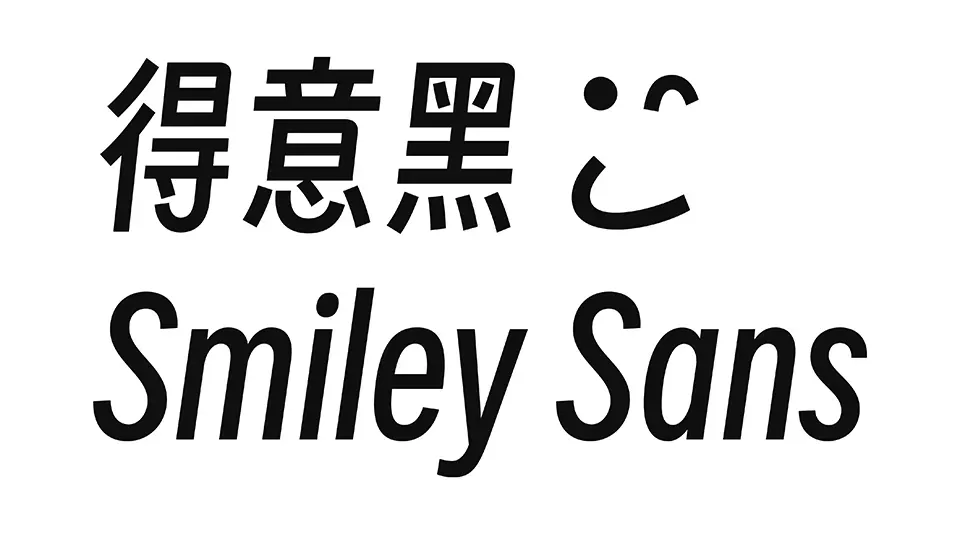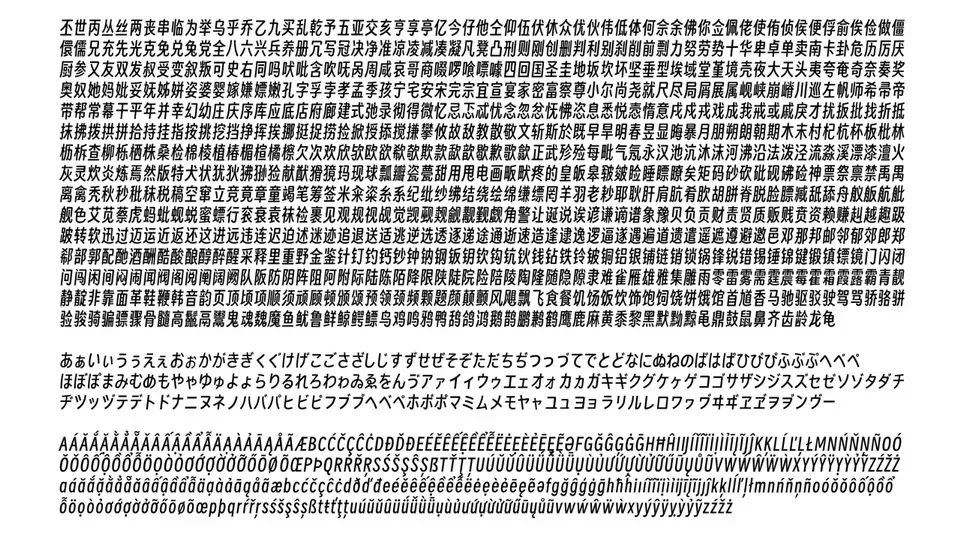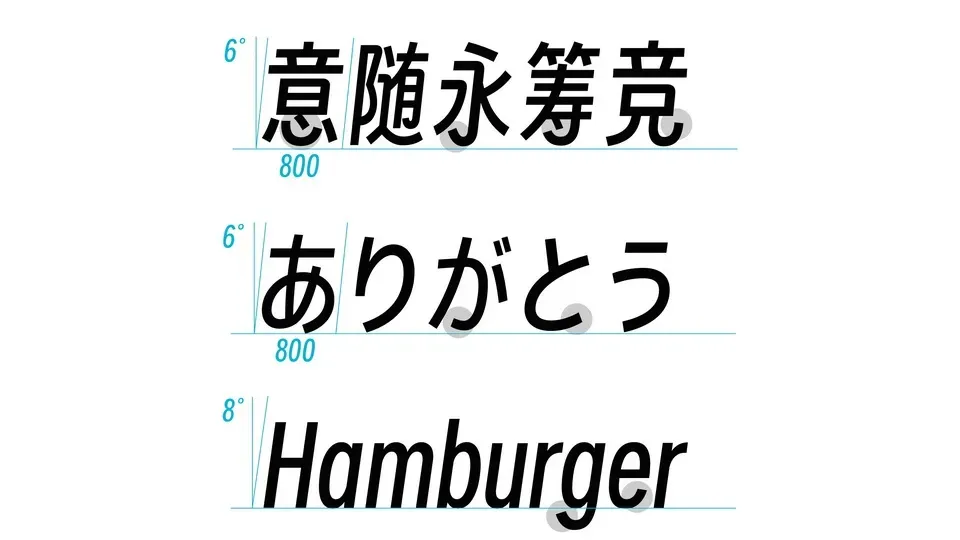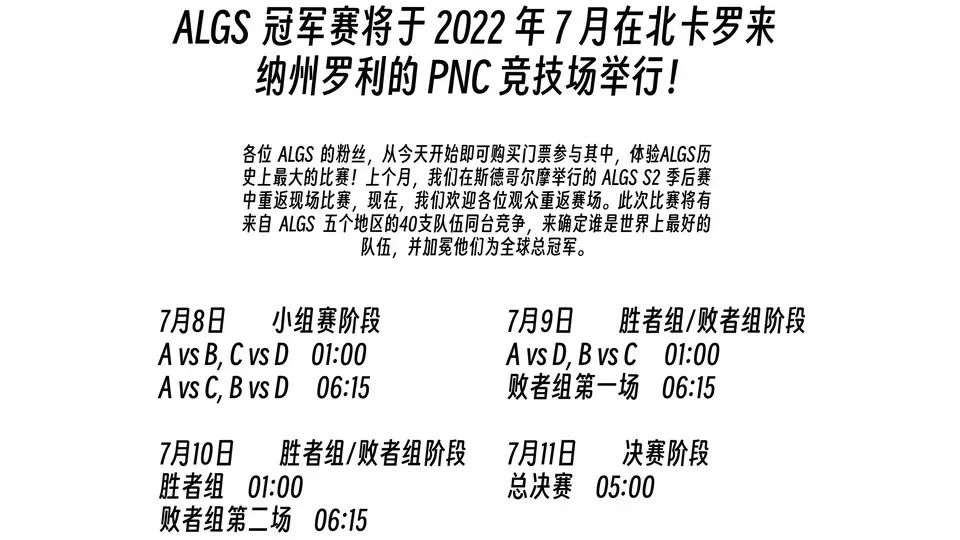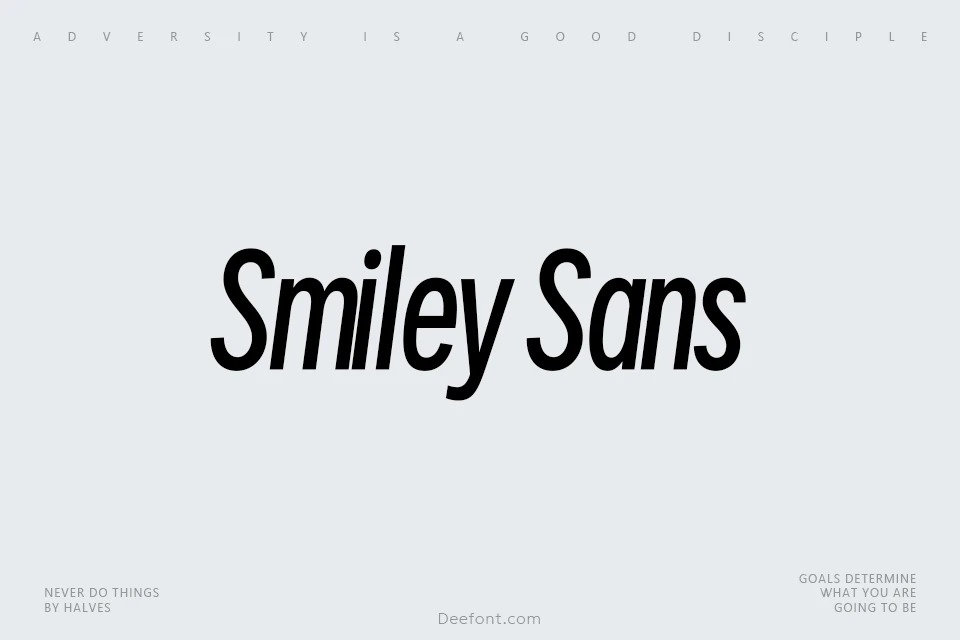
Smiley Sans Font
Smiley Sans Font is a condensed and oblique Chinese typeface that balances humanist and geometric elements, featuring a unique slanted design with hand-drawn details. It supports a wide range of languages, including Chinese, Latin, Cyrillic, and Greek, making it suitable for diverse creative projects. Another version, Smiley Sans by Sandoll, is designed with a smile-like feature in its consonant forms, offering a clear and cool impression. Both versions are ideal for display purposes, adding a modern and artistic touch to designs.